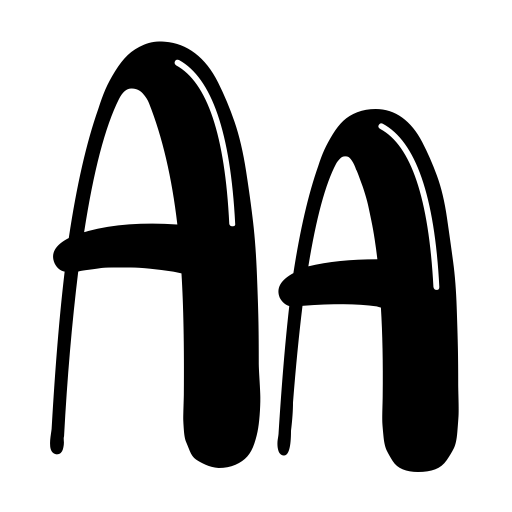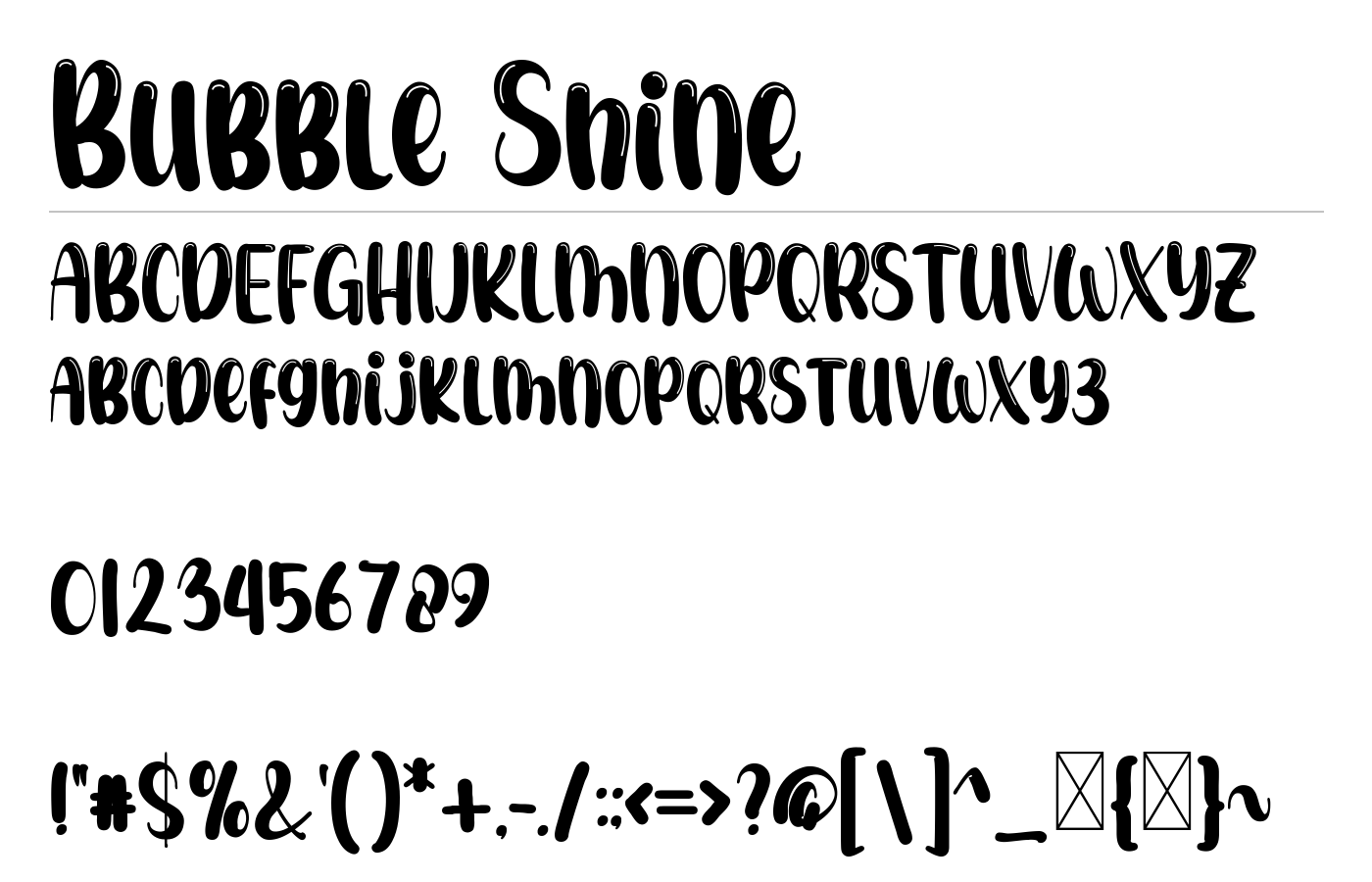
Bubble Shine is a playful, rounded script font with a bubbly, hand-drawn style that exudes fun and friendliness. Its bold, thick strokes combined with subtle shine accents make it perfect for lively branding, children’s products, and eye-catching headlines where a cheerful, informal vibe is needed. This font works well in creative projects looking to communicate joy and approachability.
Bubble Shine Font
About Bubble Shine Font